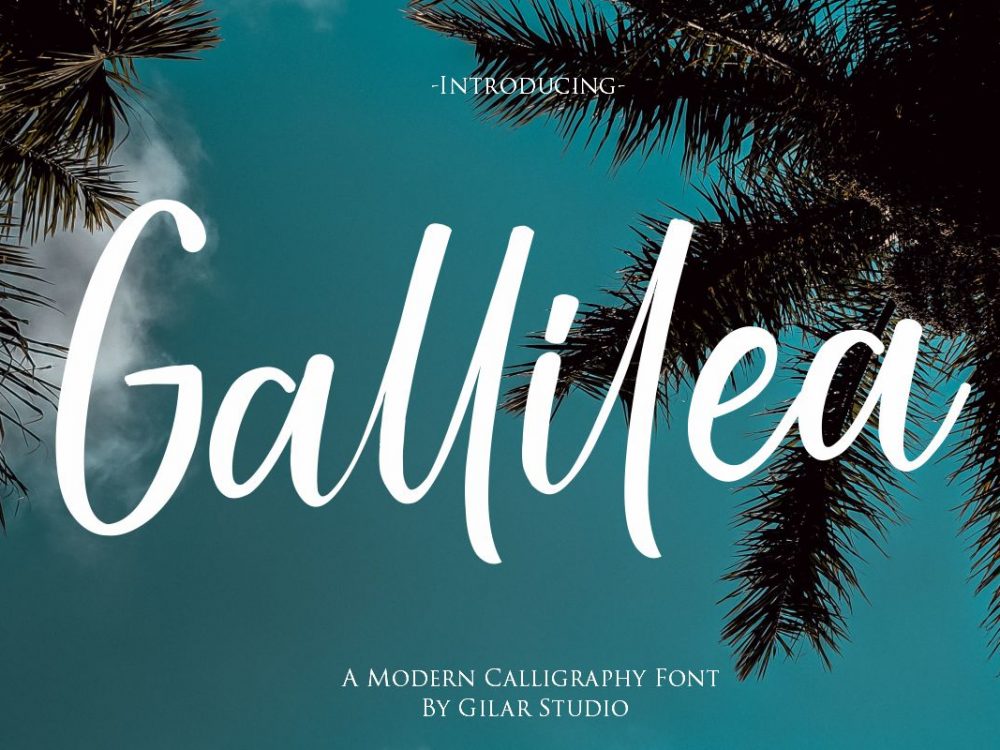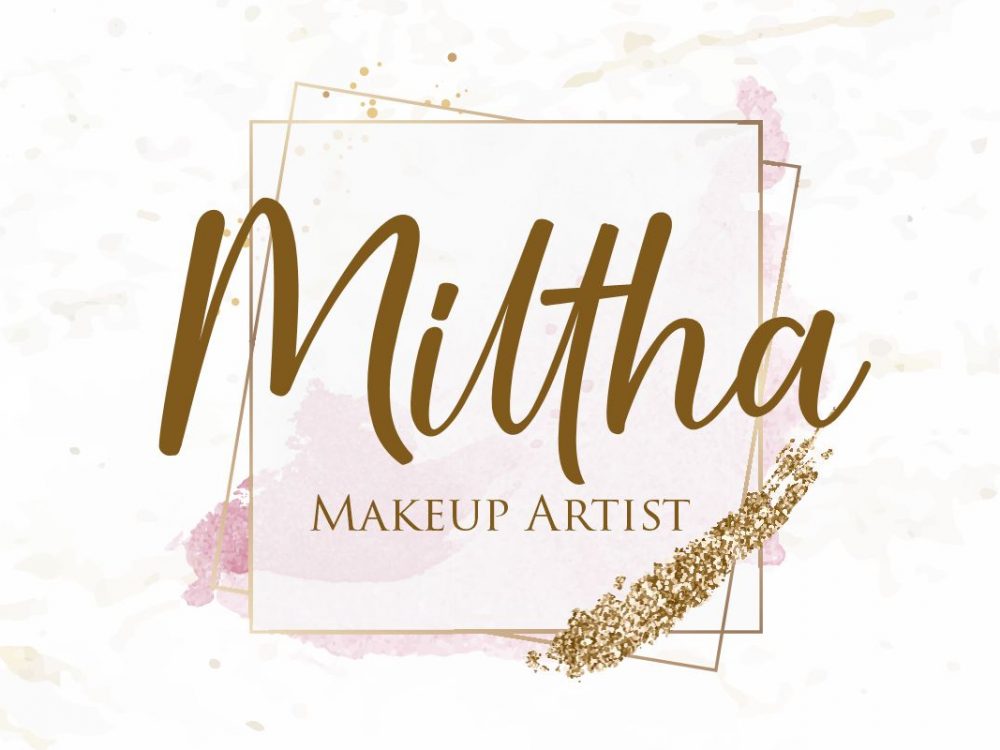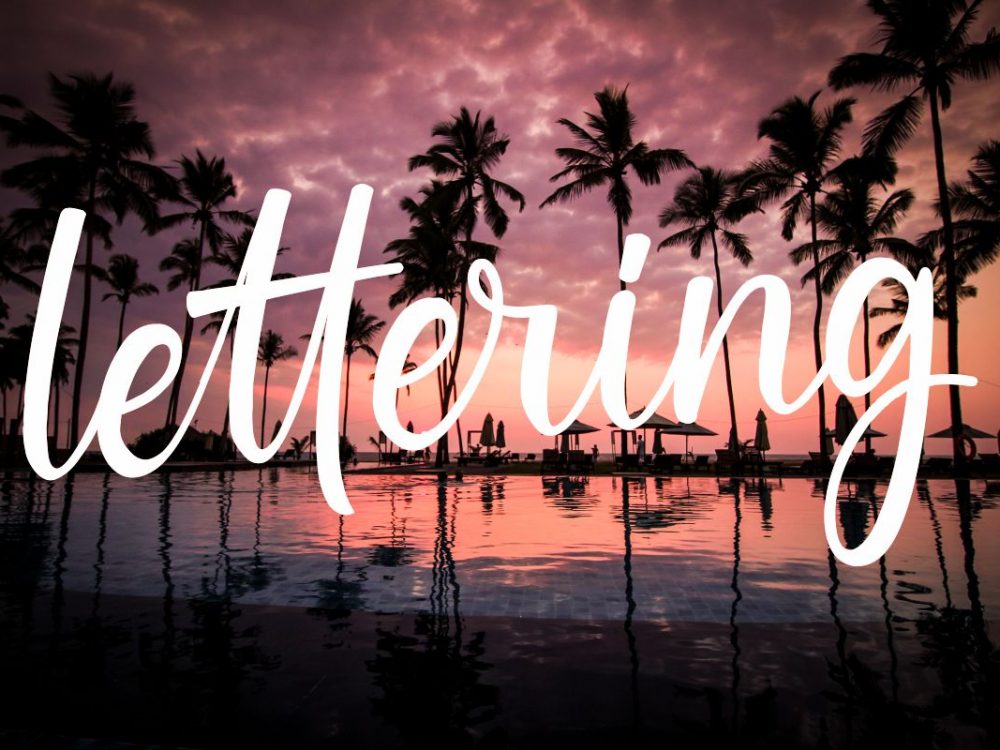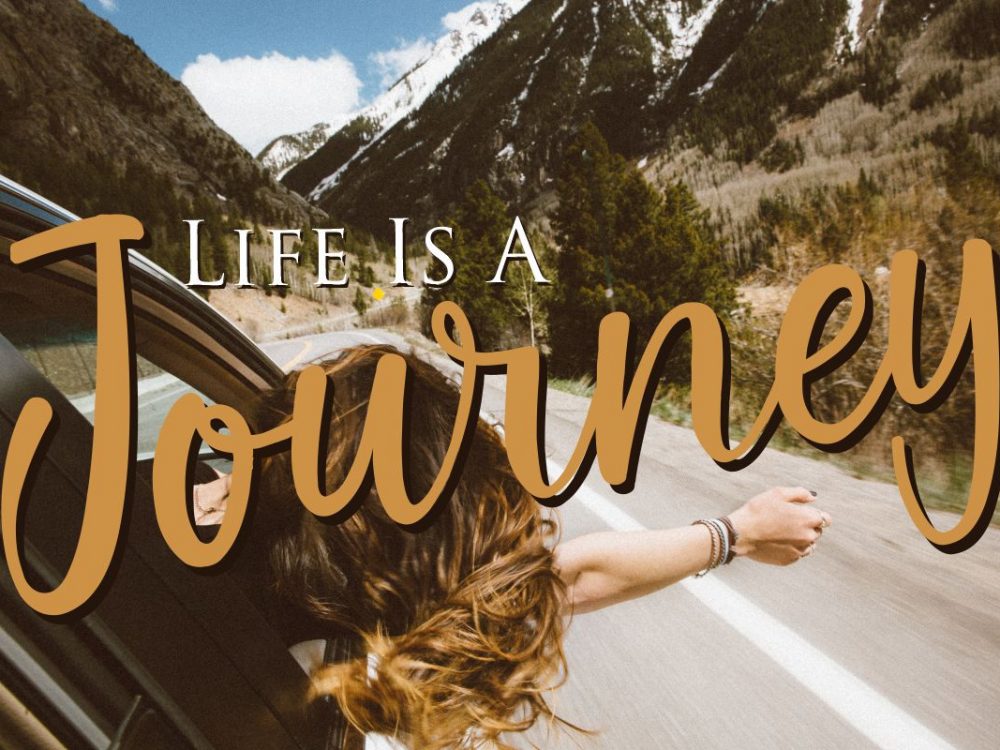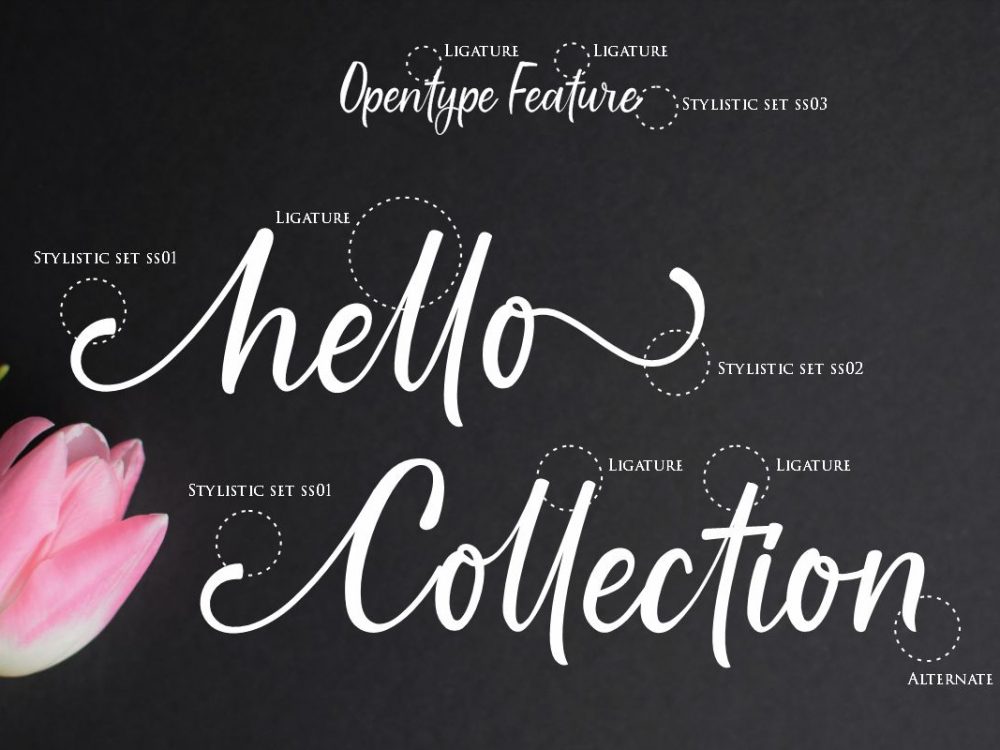
Gallillea Free Font
Gallillea Free Font is a scripted handwritten font that features a modern style and calligraphic style. This font is well suited for creating various design projects that require a scripted font. You can use this font to create interesting and memorable posters, wedding invitations, cards, branding, flyers, and more. Improve the quality and increase the popularity of your design projects using this font. If you like it don’t forget to check out the full version.